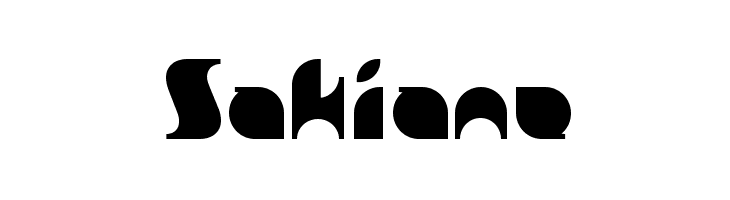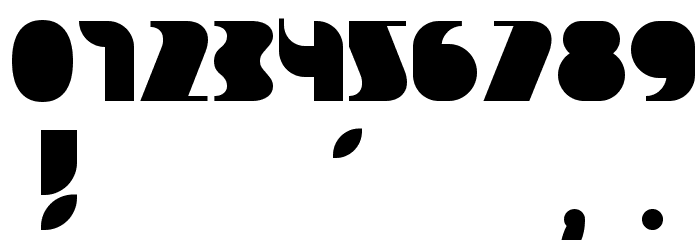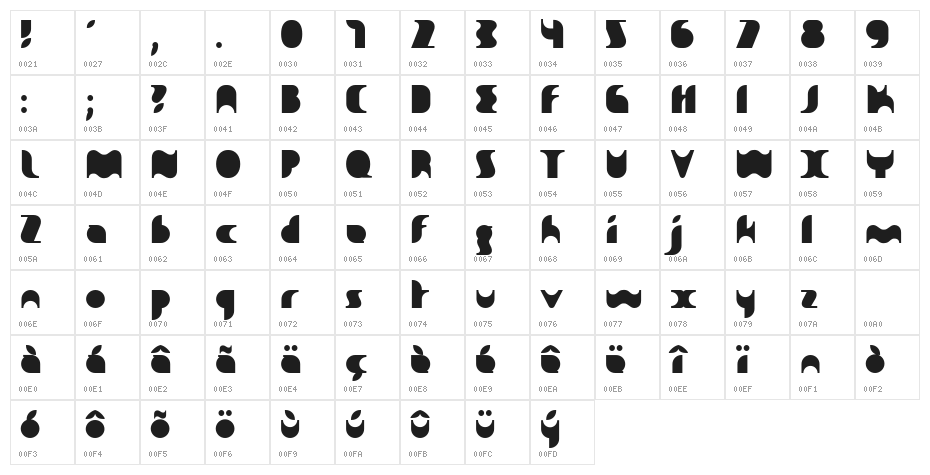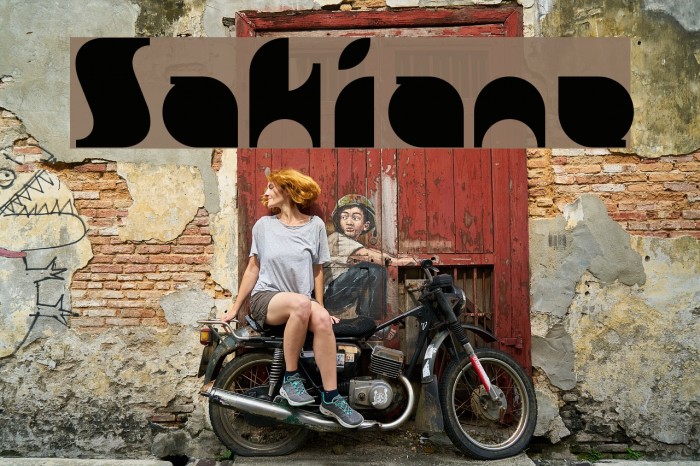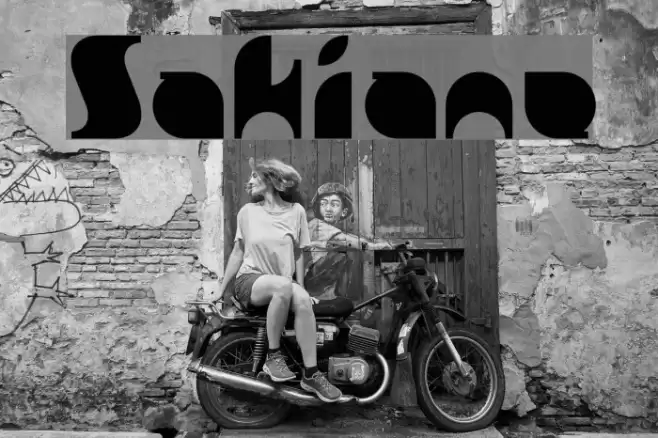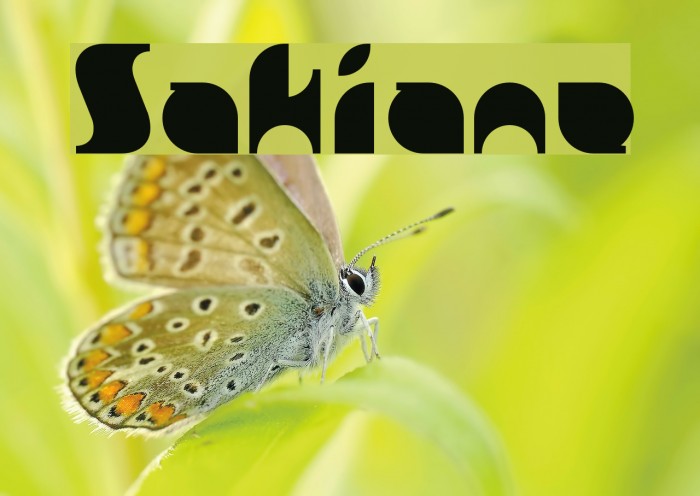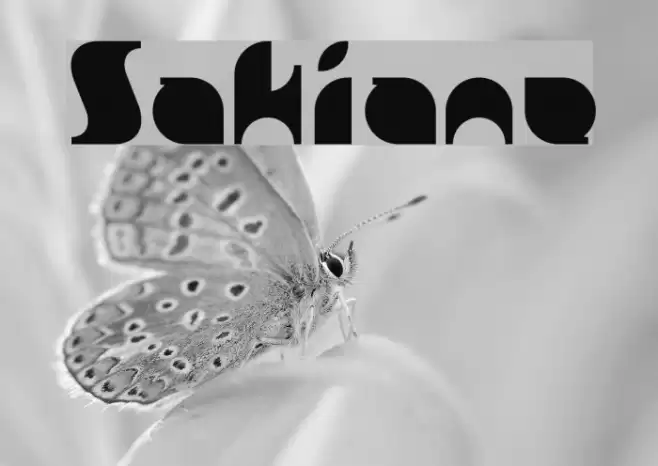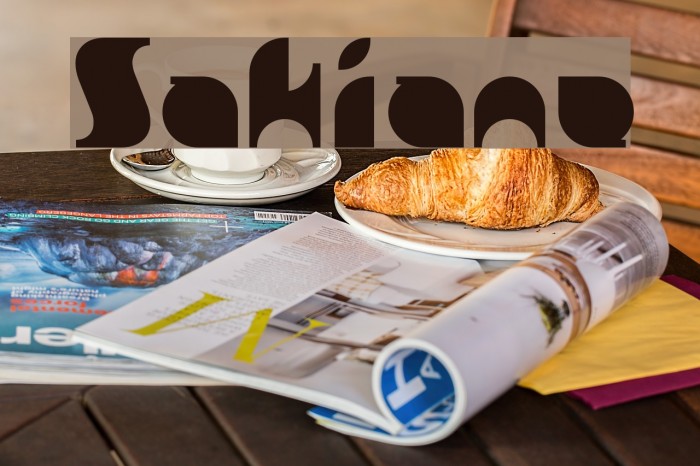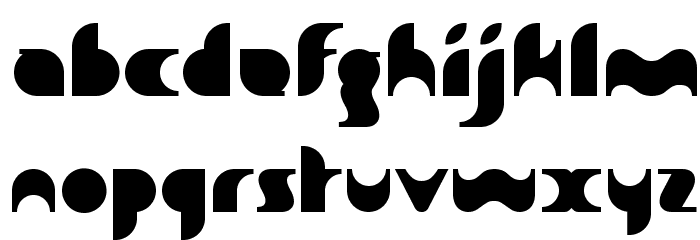
Sakiane Font
Sakiane Description
This font features a bold and striking design with a unique, artistic flair. The characters are heavily stylized with thick, rounded strokes and distinctive cutouts that create a sense of movement and energy. The uppercase and lowercase letters maintain a consistent style, with the lowercase letters mirroring the boldness of the uppercase. The numbers and special characters follow the same design principles, ensuring a cohesive look across all elements. This font's playful yet assertive appearance makes it stand out, ideal for projects that require a strong visual impact.
| Proposed Projects | Ideal for branding, poster design, album covers, and any project needing a bold, artistic touch. |